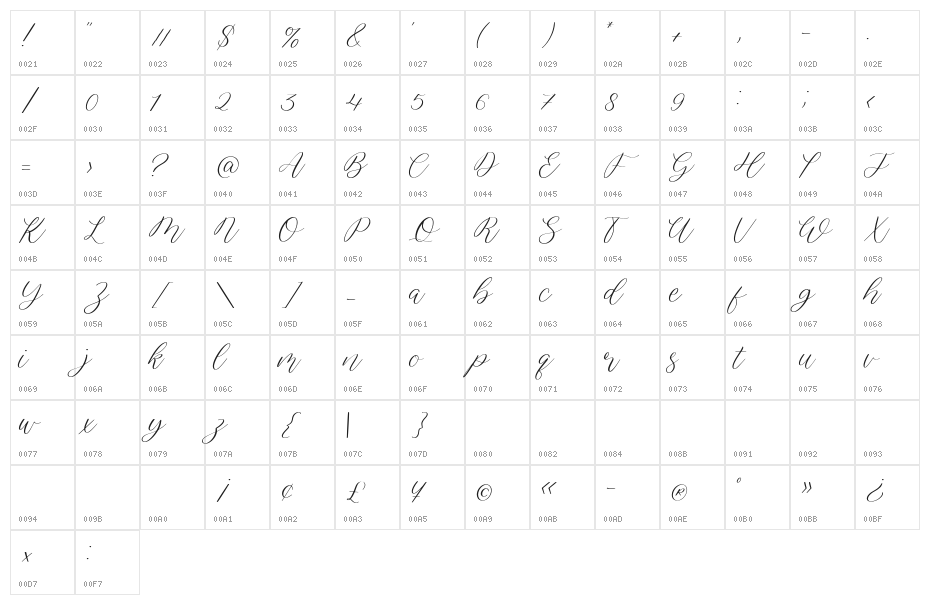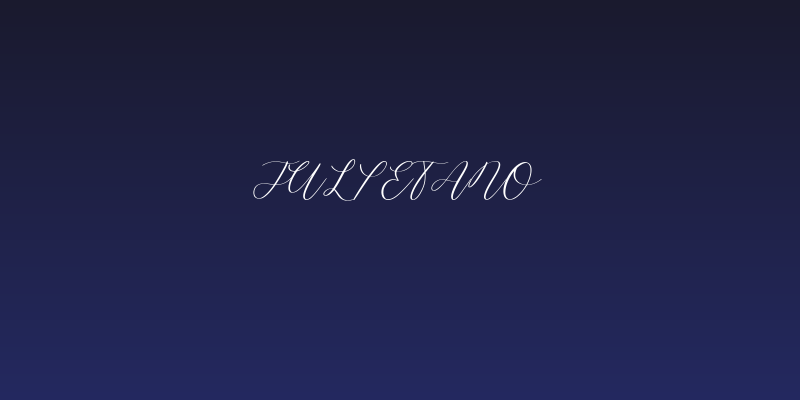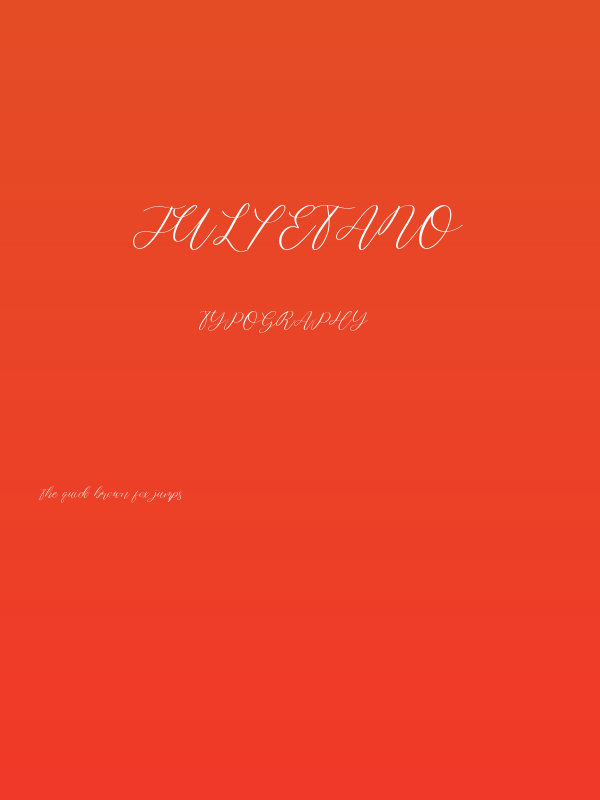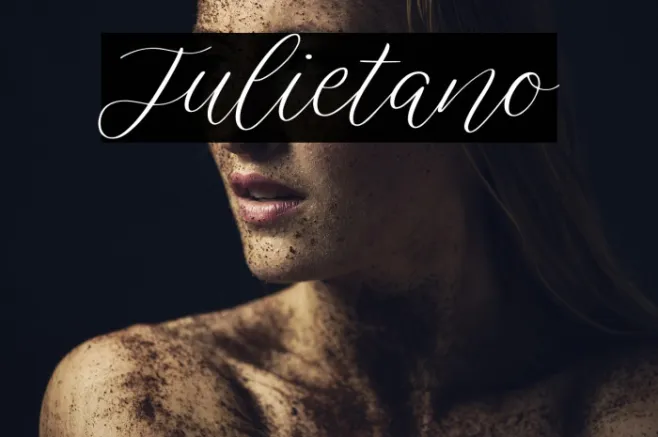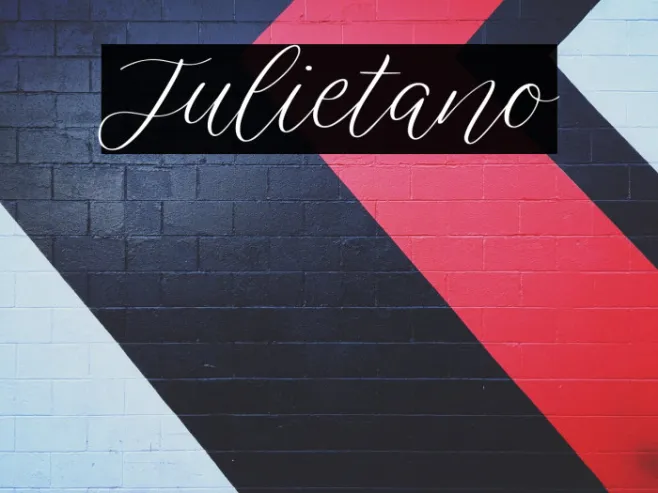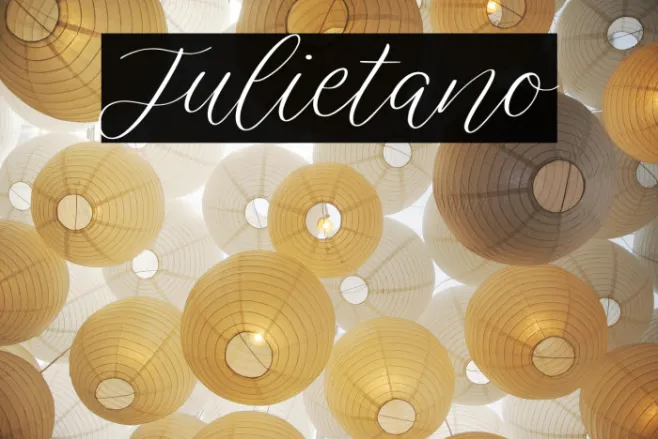
Julietano Font
Julietano Description
This elegant script font features fluid, graceful strokes that mimic the natural flow of handwriting. The uppercase letters are characterized by their sweeping curves and loops, giving a sense of sophistication and charm. The lowercase letters maintain a consistent style, with delicate connections between characters that enhance readability while preserving the font's artistic flair. Numbers and special characters are designed with the same attention to detail, ensuring a cohesive look across all text. This font is perfect for projects that require a touch of elegance and personal expression.
| Use Case | Headlines, Invitations, Logos |
| Proposed Projects | Ideal for wedding invitations, greeting cards, personal branding, and elegant packaging designs. |